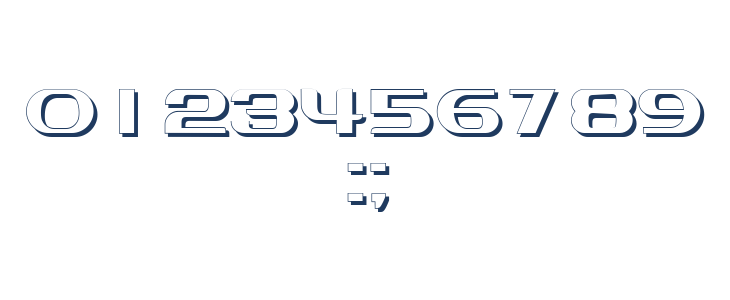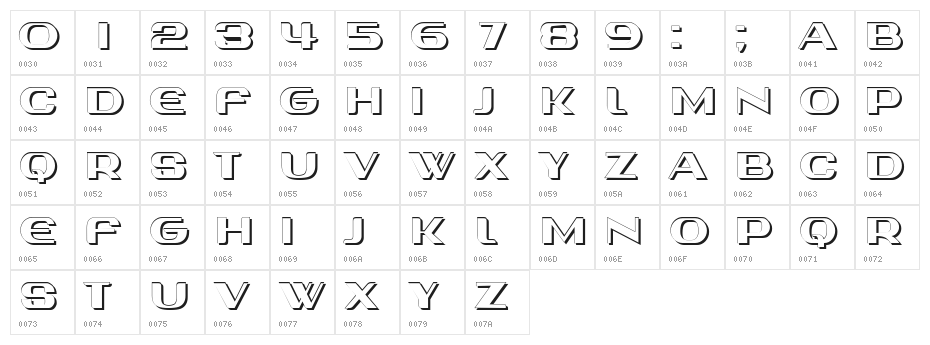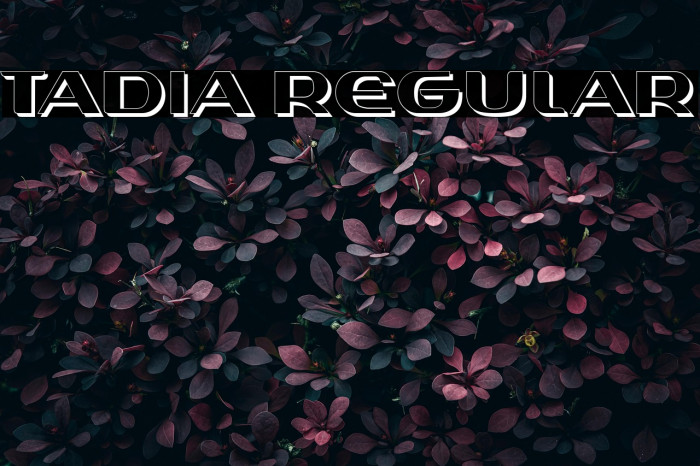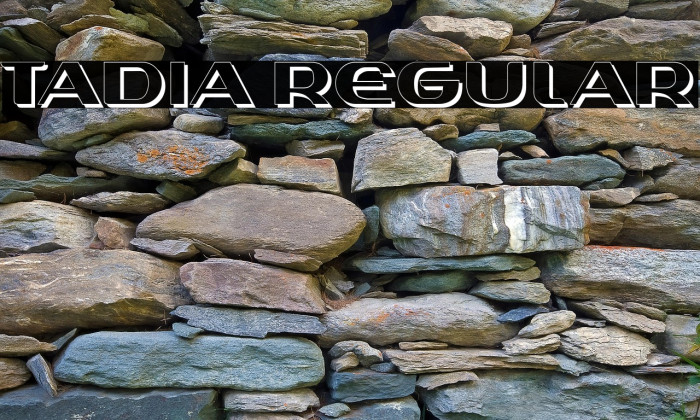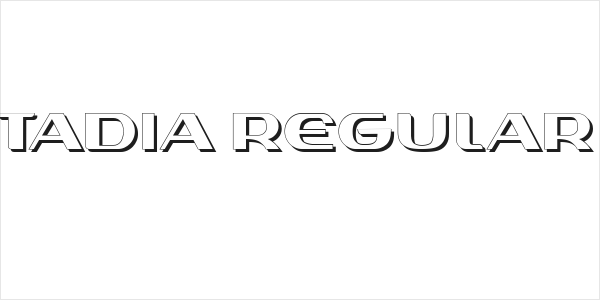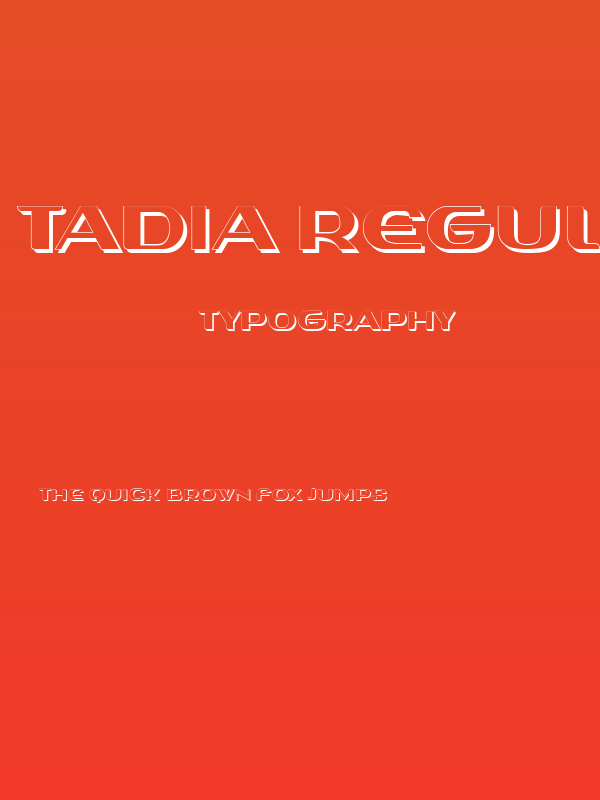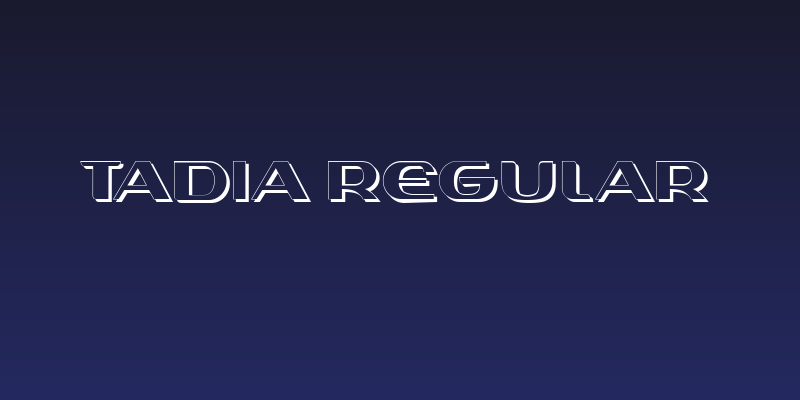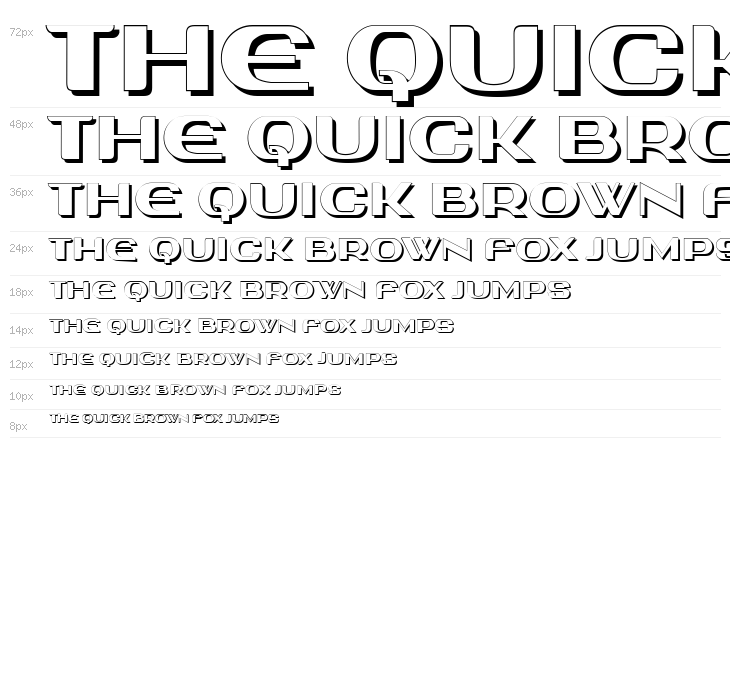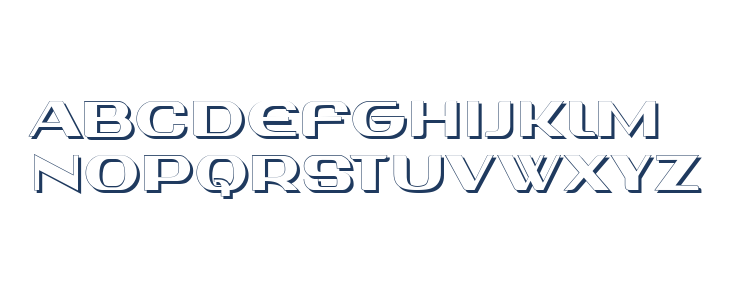
Tadia Regular Font
Tadia Regular Description
This font features a bold, geometric design with a distinct three-dimensional effect created by its shadowed outline. The uppercase letters are uniform in height, with sharp angles and clean lines that give it a modern and futuristic appearance. The numerals and special characters maintain the same stylistic elements, ensuring consistency across all glyphs. The font's unique style makes it stand out, suitable for attention-grabbing headlines or logos. Its structured form and shadowing provide depth, making it visually appealing for various design projects.
| Proposed Projects | Perfect for branding, posters, headlines, and any design requiring a modern, eye-catching typeface. |